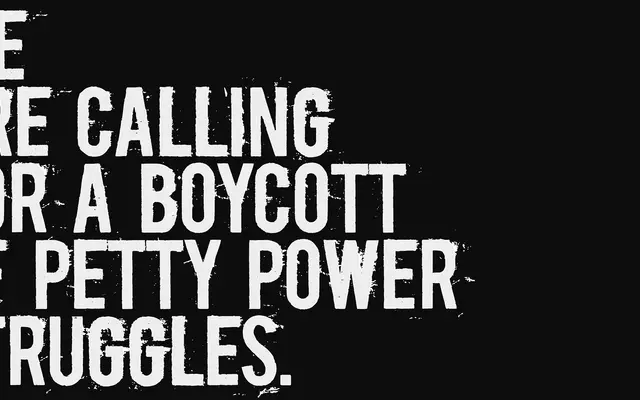
Boycott
Dharma Type · 2006
A distressed display typeface with rough, irregular letterforms suited to posters and large headlines.
Awarded Second Prize at Best Font 2006 and named a New Rising Star on MyFonts, Boycott carries a raw, noisy character through subtle variations between its uppercase and lowercase letters. The deliberate roughness makes it well suited to poster work and editorial headlines where an aggressive, unpolished tone is required. A single weight keeps the offering focused on impact over versatility.
An expressive, distressed display typeface with rough, irregular letterforms designed for large-scale use such as posters and headlines. Fits squarely in the grunge display category due to its intentional roughness and raw character.